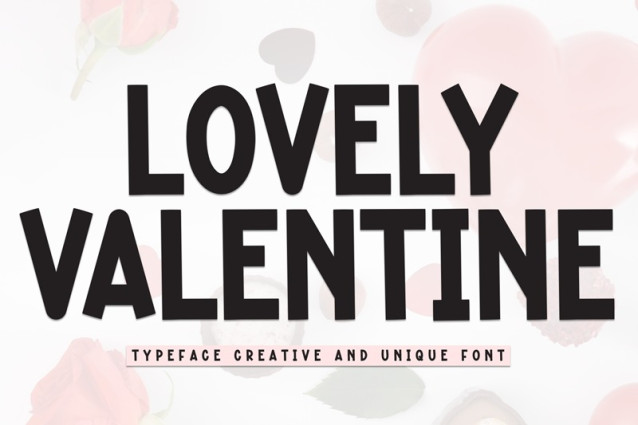
Lovely Valentine Font
Lovely Valentine Font is a sweet and friendly handwritten display font. Cute and fun, this font is ideal for writing wedding invitations, cards, or any other design that might need a fun touch!